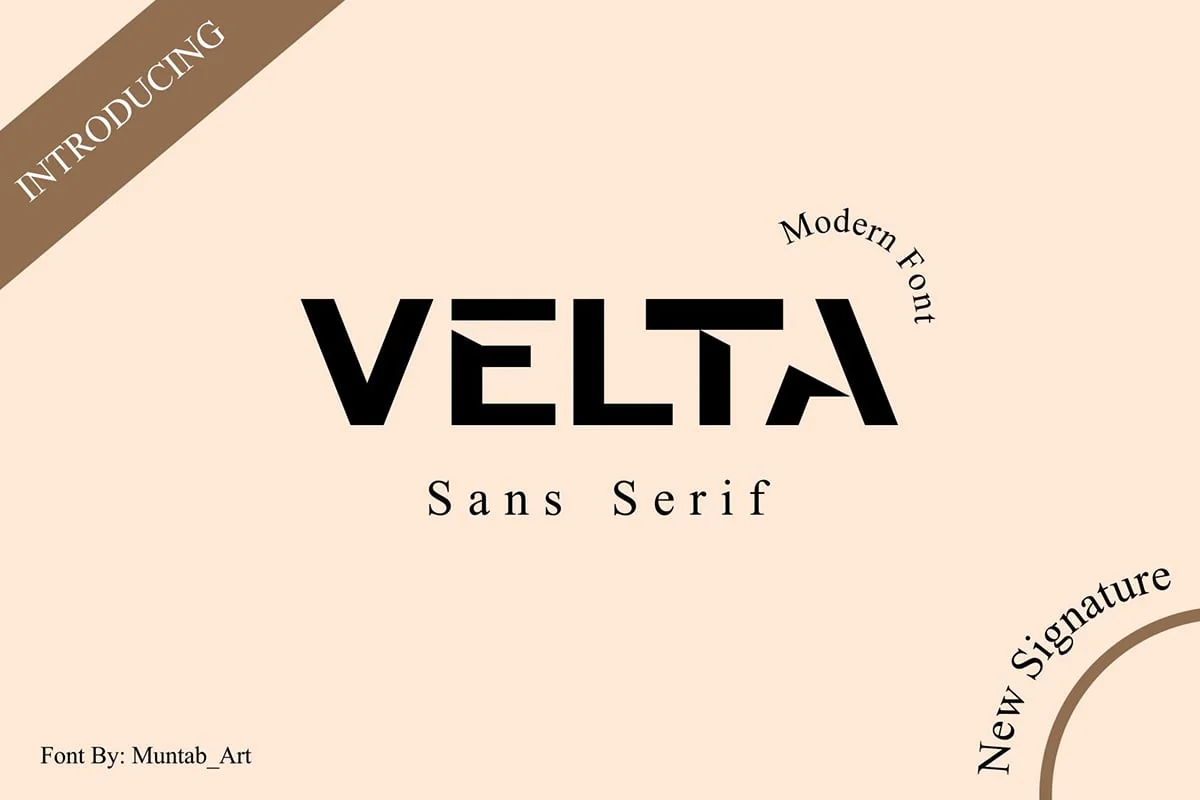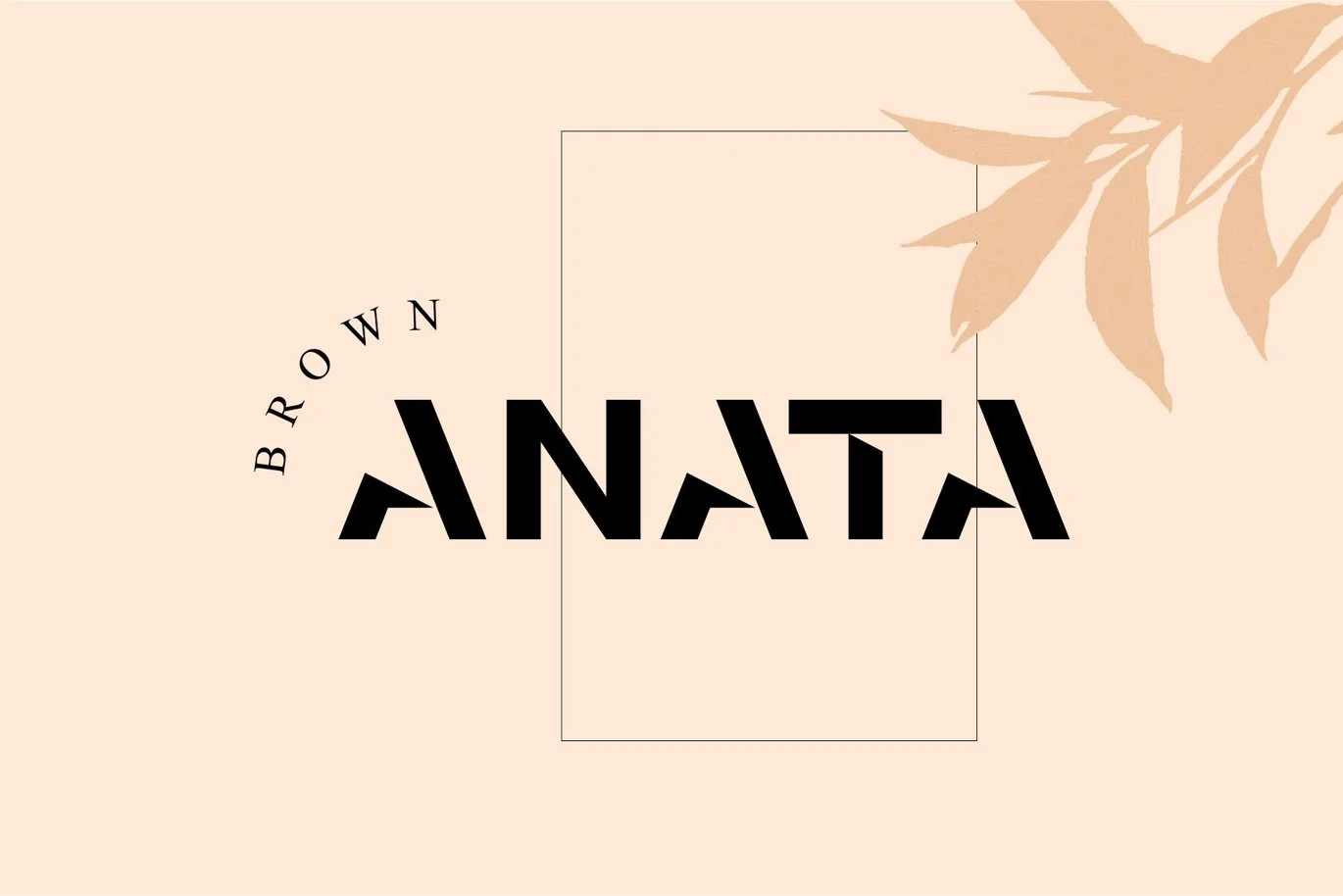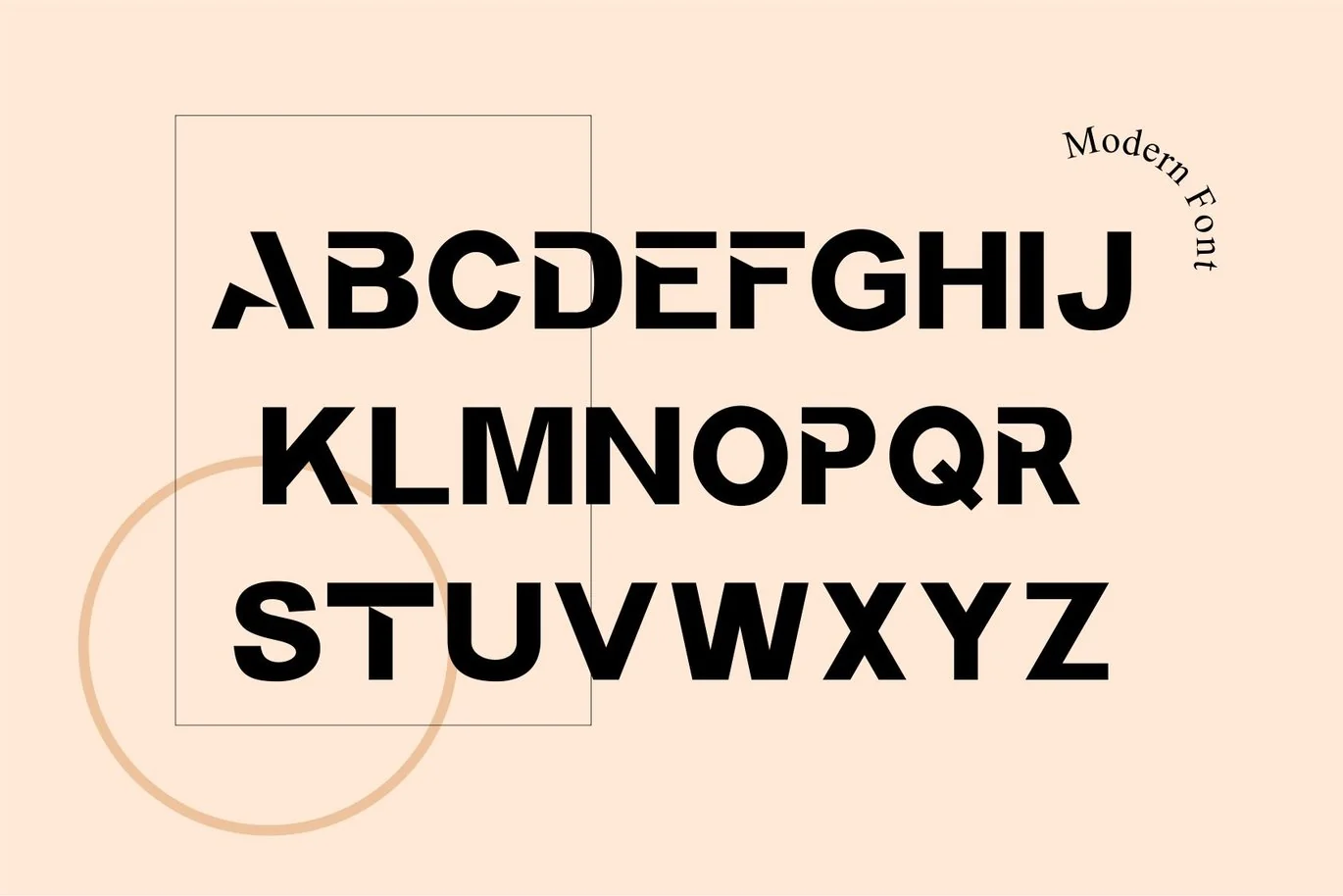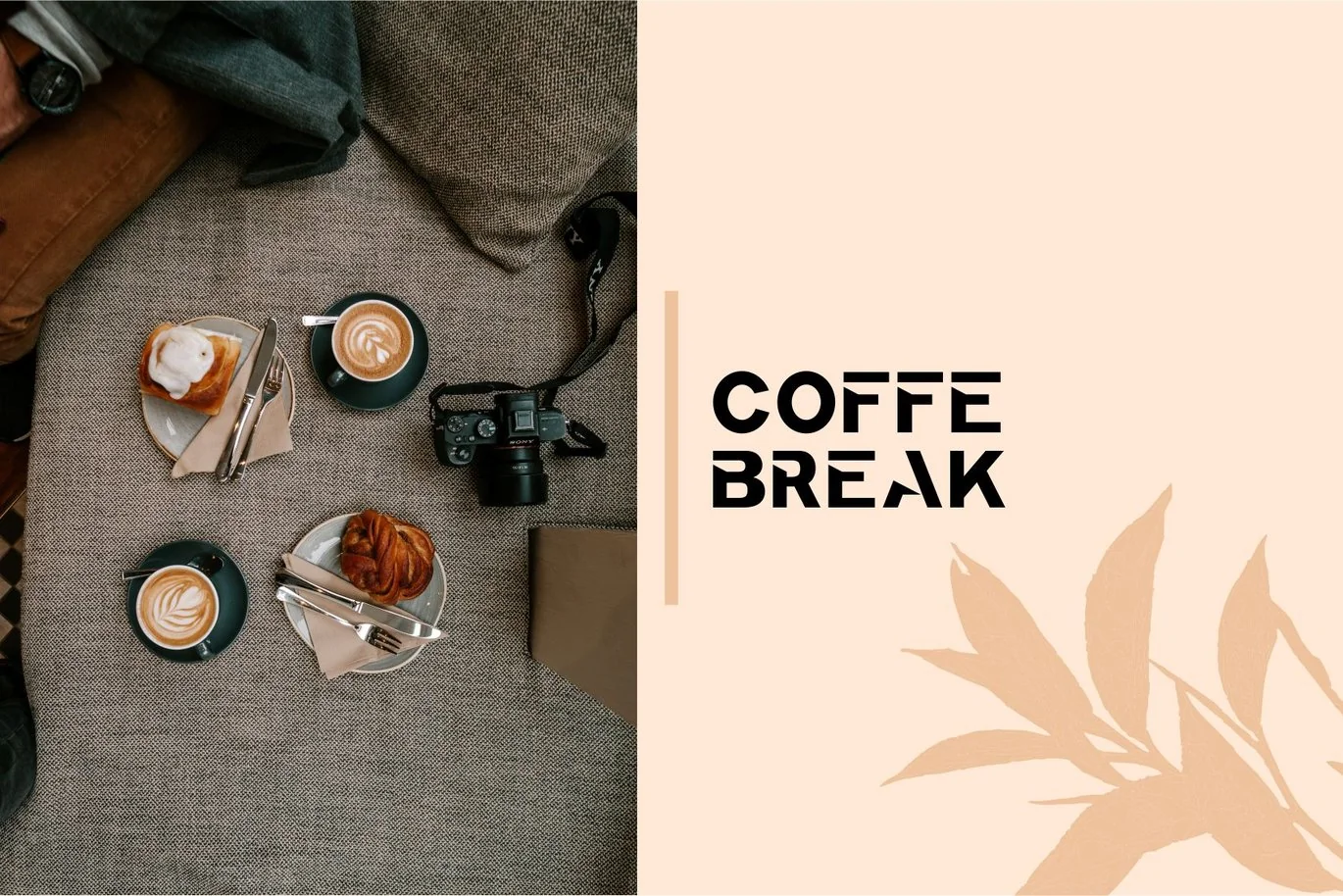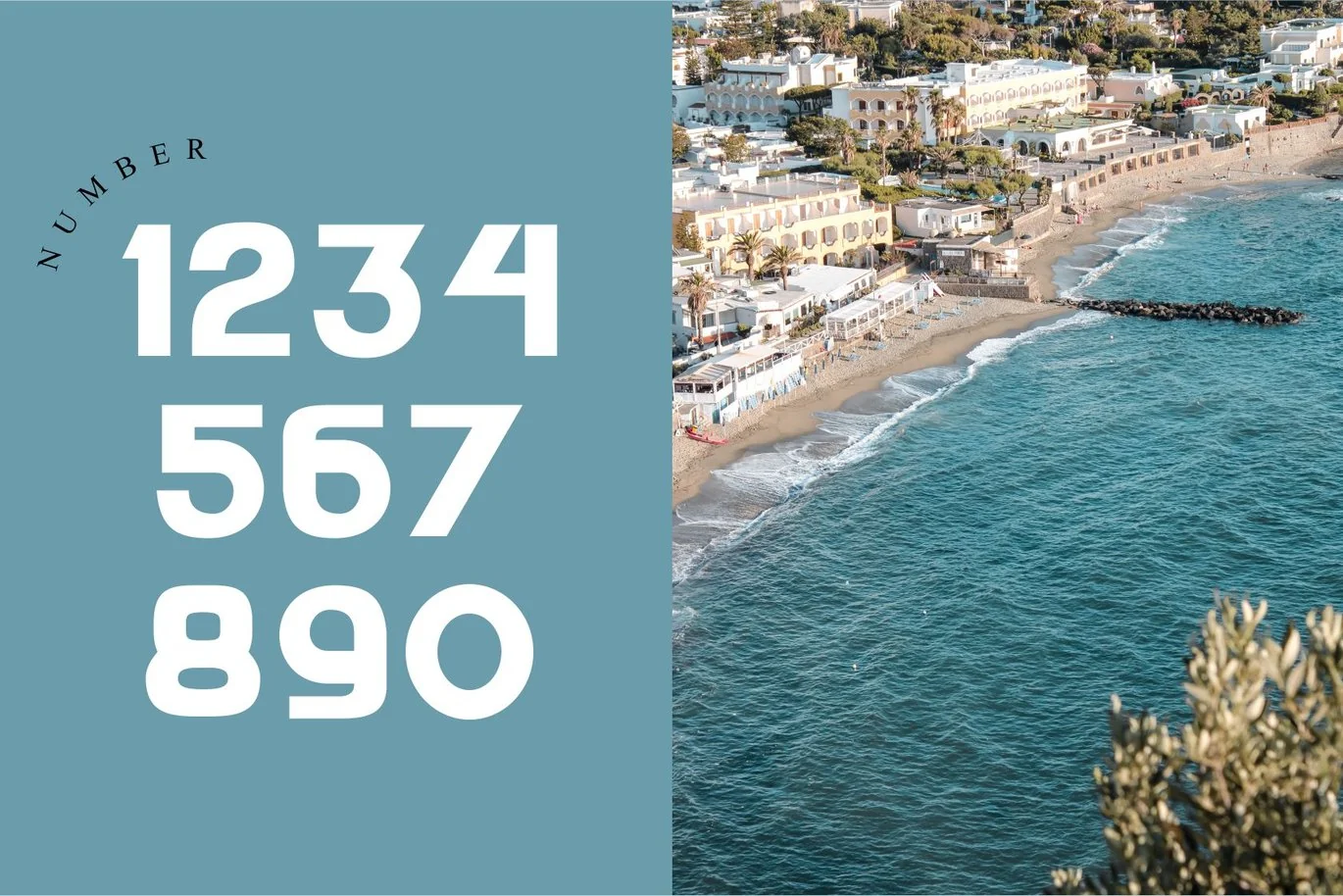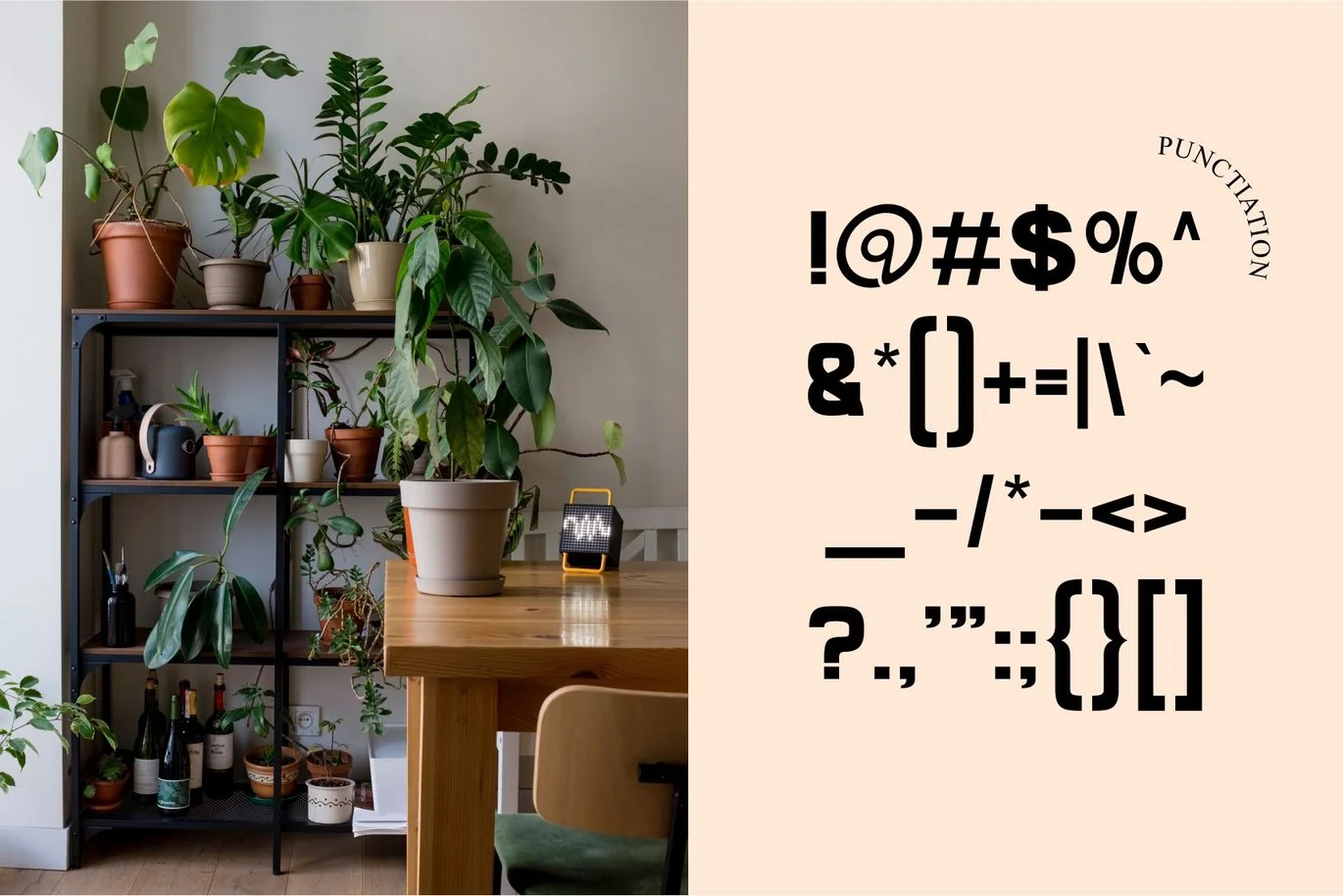
Velta | Modern Font
Velta fonts includes uppercase letters, numerals, a large range of punctuation. Sans serif font with modern style. Created for poster, web design, branding, illustrations, badges and some other works.